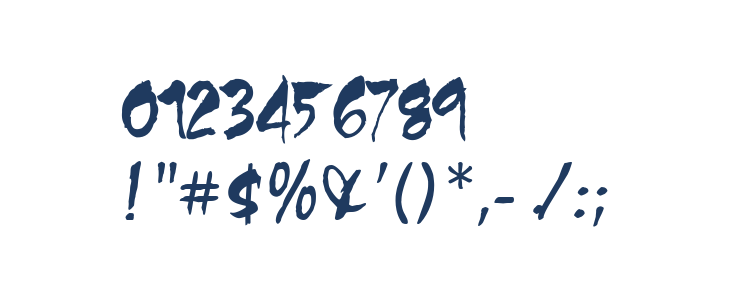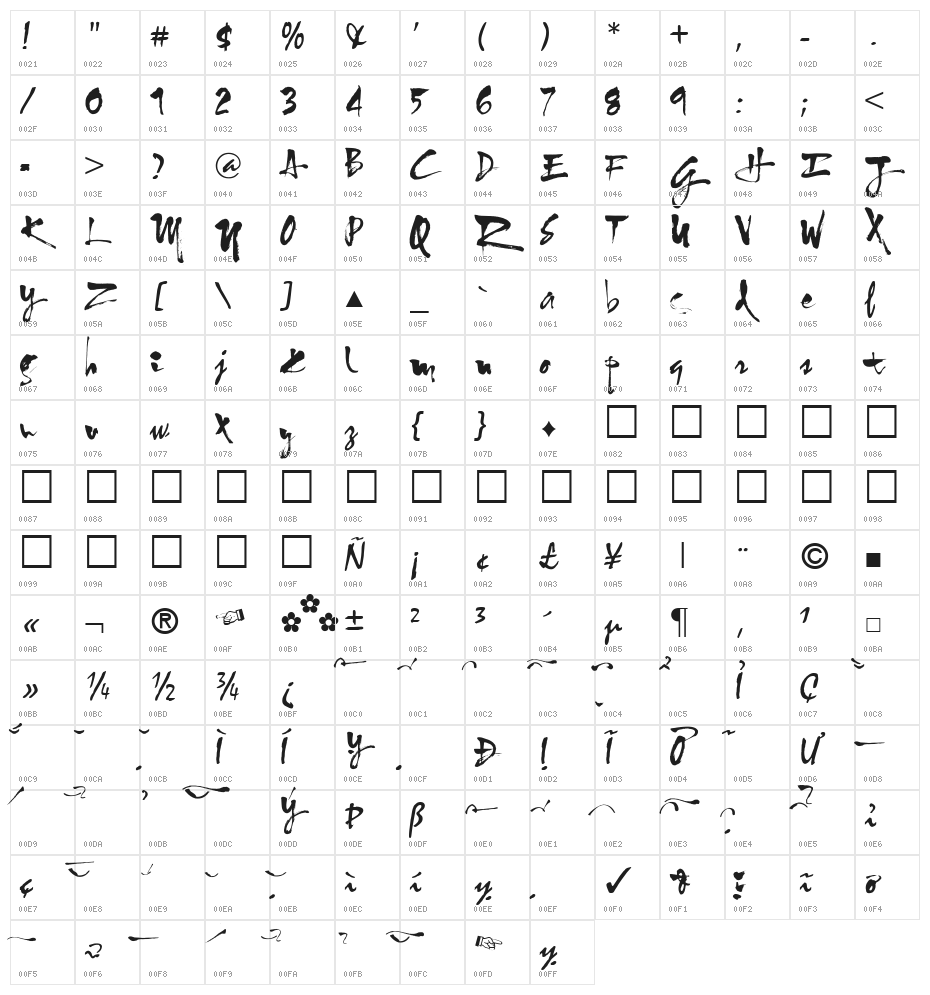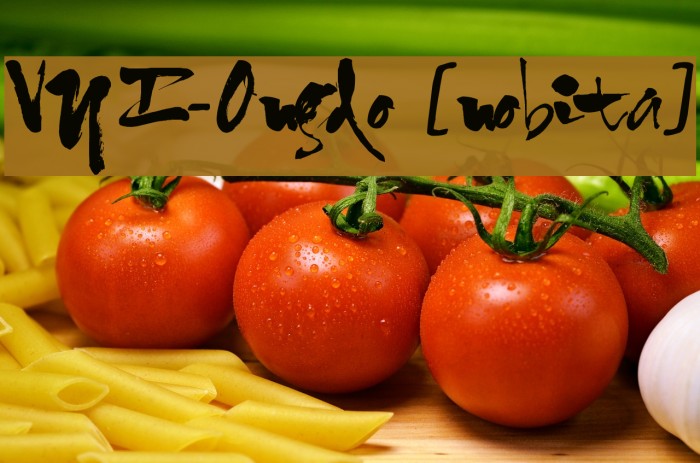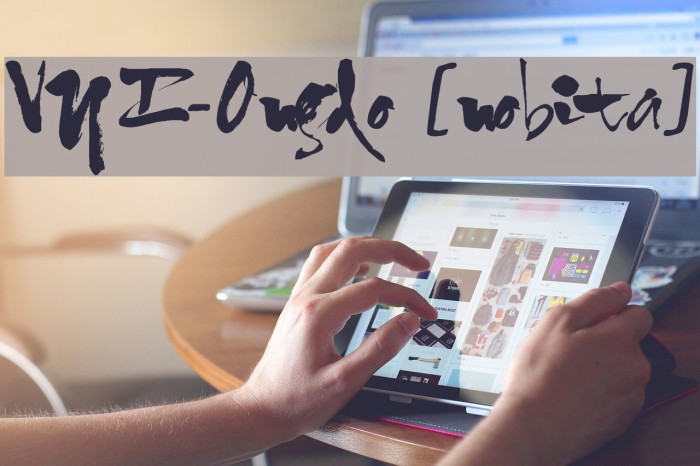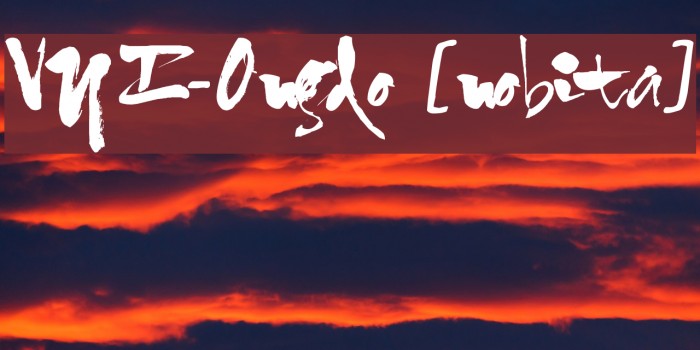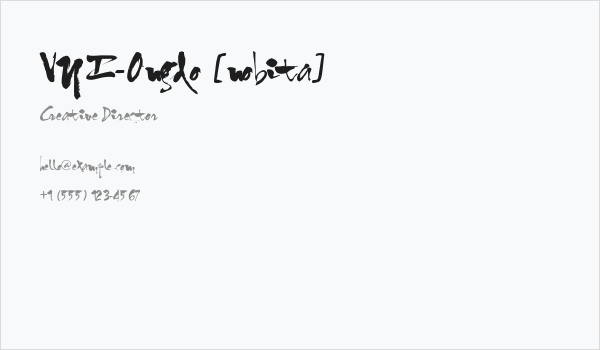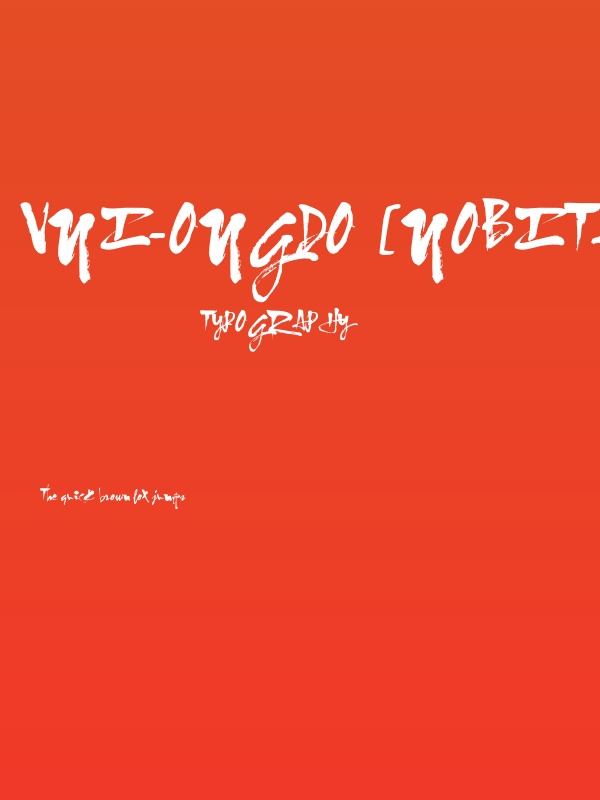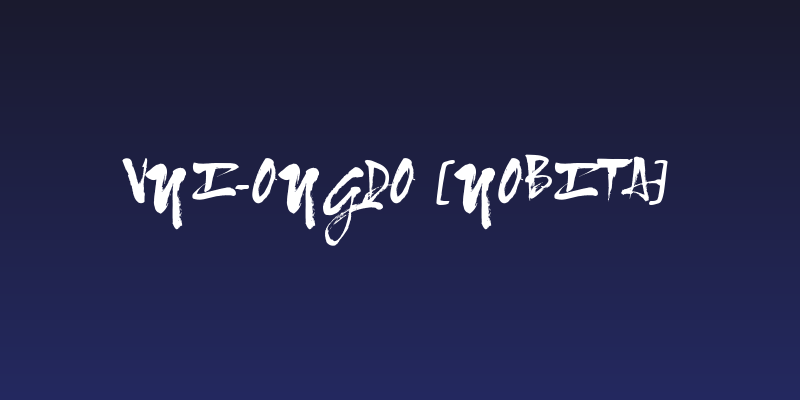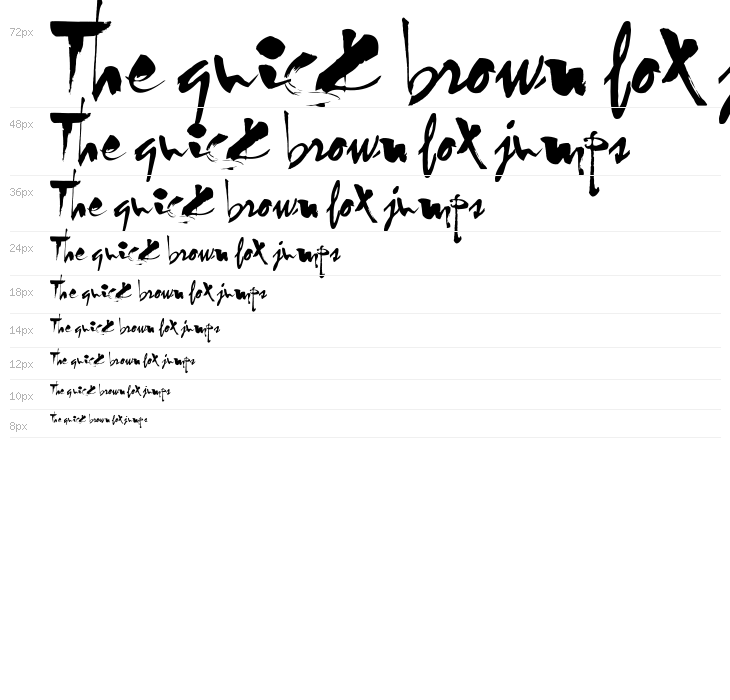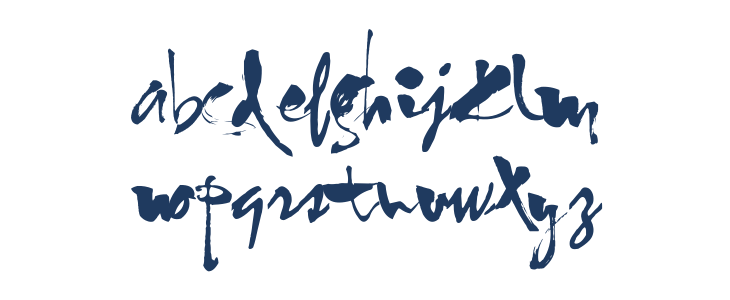
VNI-Ongdo [nobita] Font
VNI-Ongdo [nobita] Description
This font exhibits a bold, expressive style reminiscent of brush strokes, giving it a dynamic and artistic appearance. The characters are irregular and vary in thickness, creating a sense of movement and energy. The uppercase letters are particularly striking, with exaggerated curves and angles that suggest a sense of urgency and creativity. The lowercase letters maintain this energetic style, though they are slightly more restrained, providing a nice balance. Numbers and special characters follow the same aesthetic, ensuring consistency across all elements. This font's unique style makes it stand out, ideal for projects that require a strong visual impact.
| Overall Style | Artistic, Expressive |
| Use Case | Headlines, Posters, Artistic Designs |
| Proposed Projects | Ideal for artistic projects, posters, album covers, and any design requiring a bold, creative touch. |